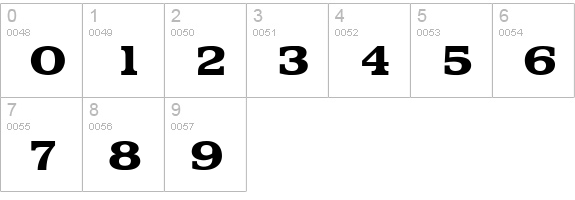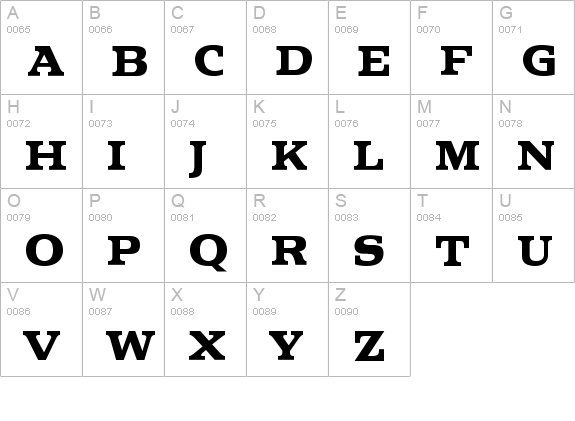
Introducing the captivating and versatile Tekton Display SSi font, a true gem for all typography enthusiasts. This font is a harmonious blend of modernity and sophistication, designed to make your designs stand out from the crowd. With its clean and crisp lines, Tekton Display SSi exudes a sense of elegance and professionalism, making it perfect for a wide range of projects. Whether you are designing a logo, creating eye-catching headlines, or crafting compelling marketing materials, this font will effortlessly elevate your work to new heights. One of the most appealing aspects of Tekton Display SSi is that it is freely available to download at FontsMarket.com. This means that you can explore its immense potential without any financial burden. Say goodbye to expensive font licenses and embrace the freedom of creativity with this remarkable typeface. The versatility of Tekton Display SSi is truly remarkable. It seamlessly adapts to various design styles, from sleek and modern to vintage and nostalgic. Its bold and distinctive characters make a statement, capturing attention and leaving a lasting impression on your audience. Whether you are a seasoned designer or just starting your creative journey, Tekton Display SSi will be your faithful companion. Its intuitive design and effortless legibility ensure that your message is conveyed with utmost clarity and impact. Embrace the power of Tekton Display SSi and unlock a world of endless possibilities. This font is not just a tool; it is a gateway to innovative and visually stunning designs. Let your imagination run wild as you explore the vast potential of this font and create captivating visuals that leave a lasting impression. Download Tekton Display SSi for free at FontsMarket.com and embark on a design journey like no other. Elevate your projects to new heights, captivate your audience, and make a statement with this extraordinary font. It's time to unleash your creativity and let Tekton Display SSi be your guiding light.